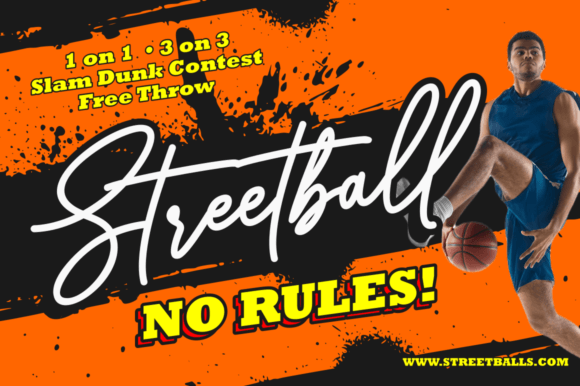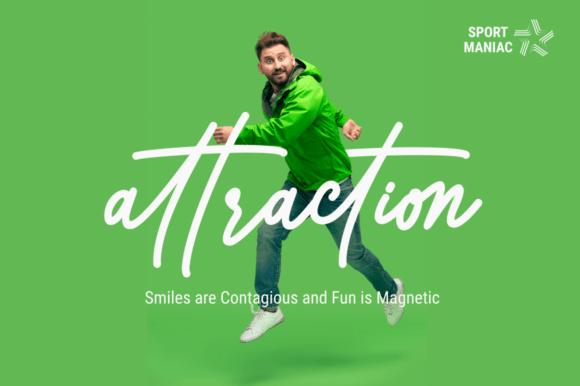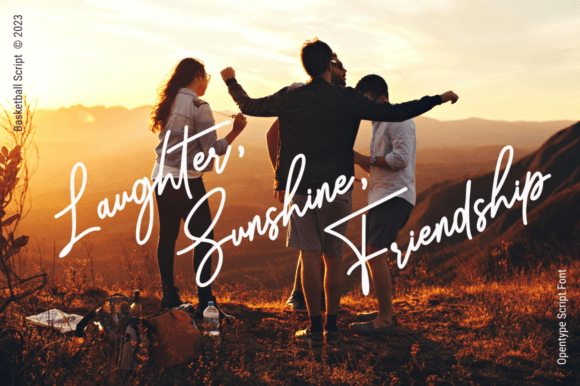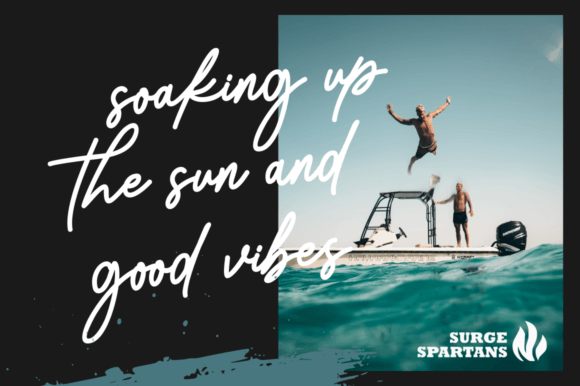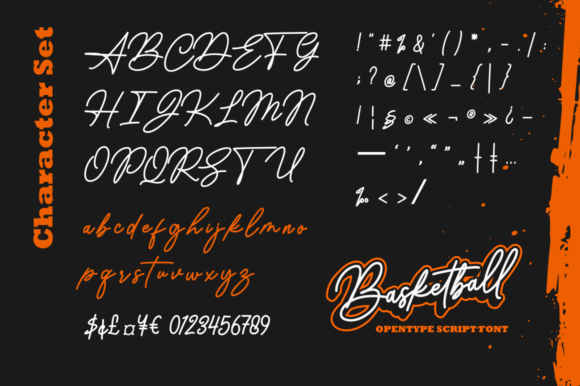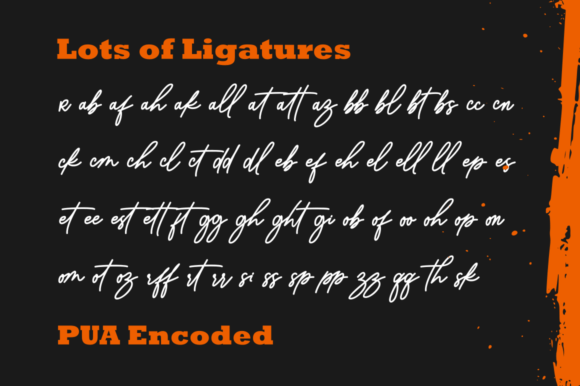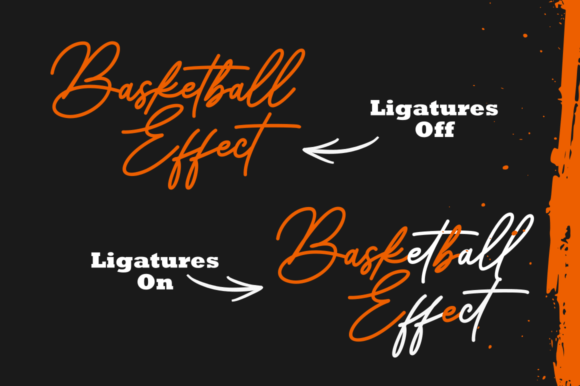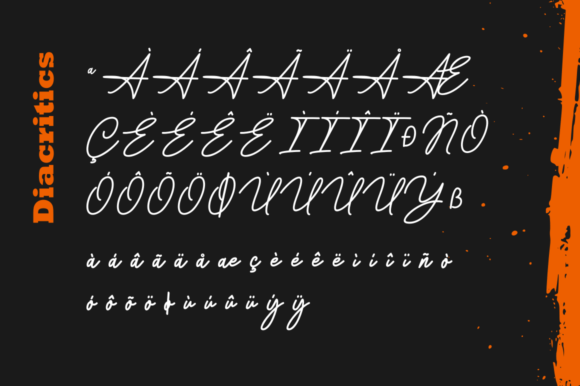
Basketball Font
Basketball is a beautiful and simple handwritten font, contemporary and fashionable,Baskrtball looks elegant for a variety of designs. This elegant font is readable and looks great as a title or body text. This font is suitable for various magazine title designs, social media, branding, wedding invitations, cards, etc. Basketball includes ligatures, capital letters, and alternate letters. You need a program that supports OpenType features such as Adobe Illustrator CS, Adobe Photoshop CC, Adobe Indesign and Corel Draw X6/X7. and you can also access alternative glyphs via Font Book (Mac users) or Windows Character Map (Windows users).